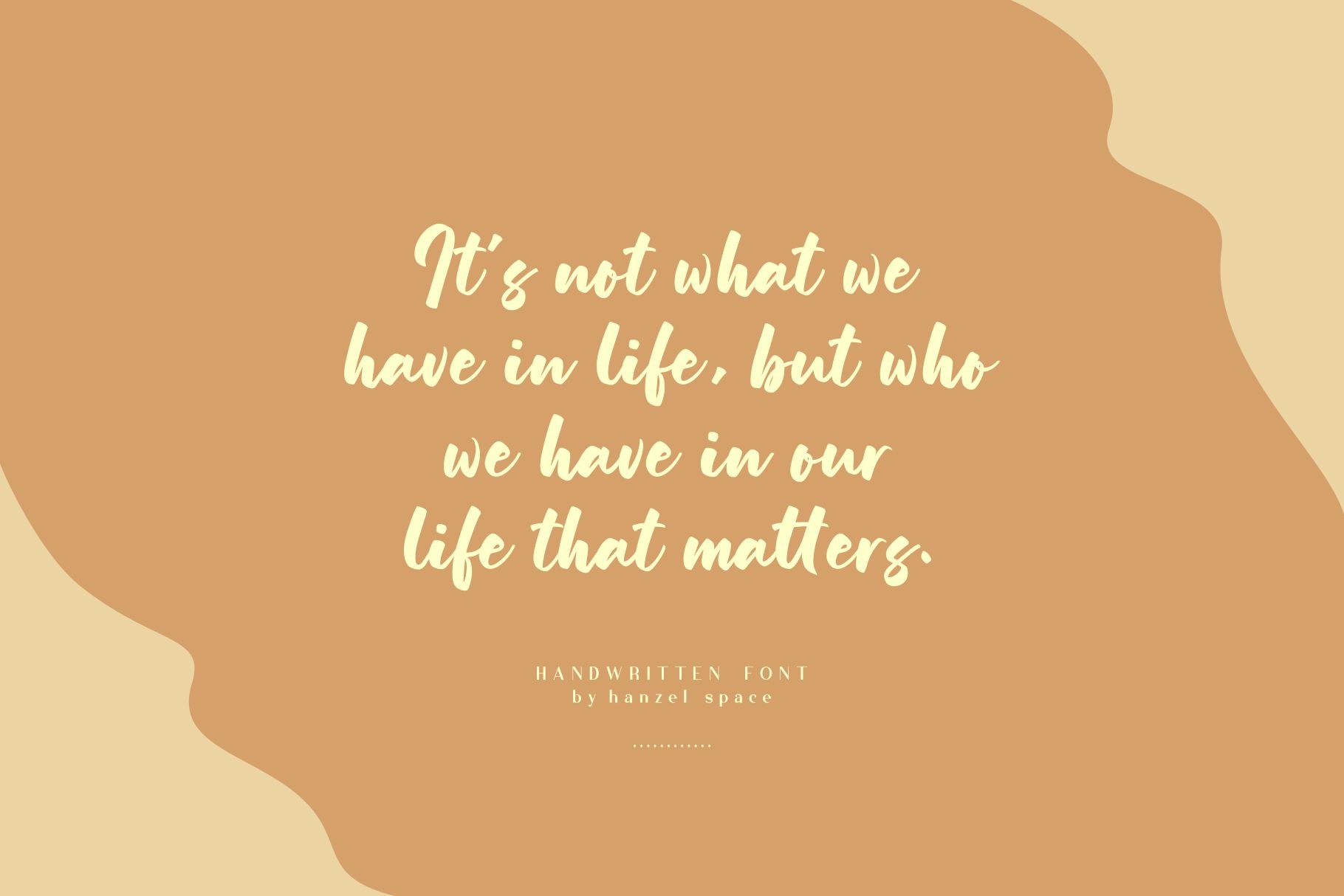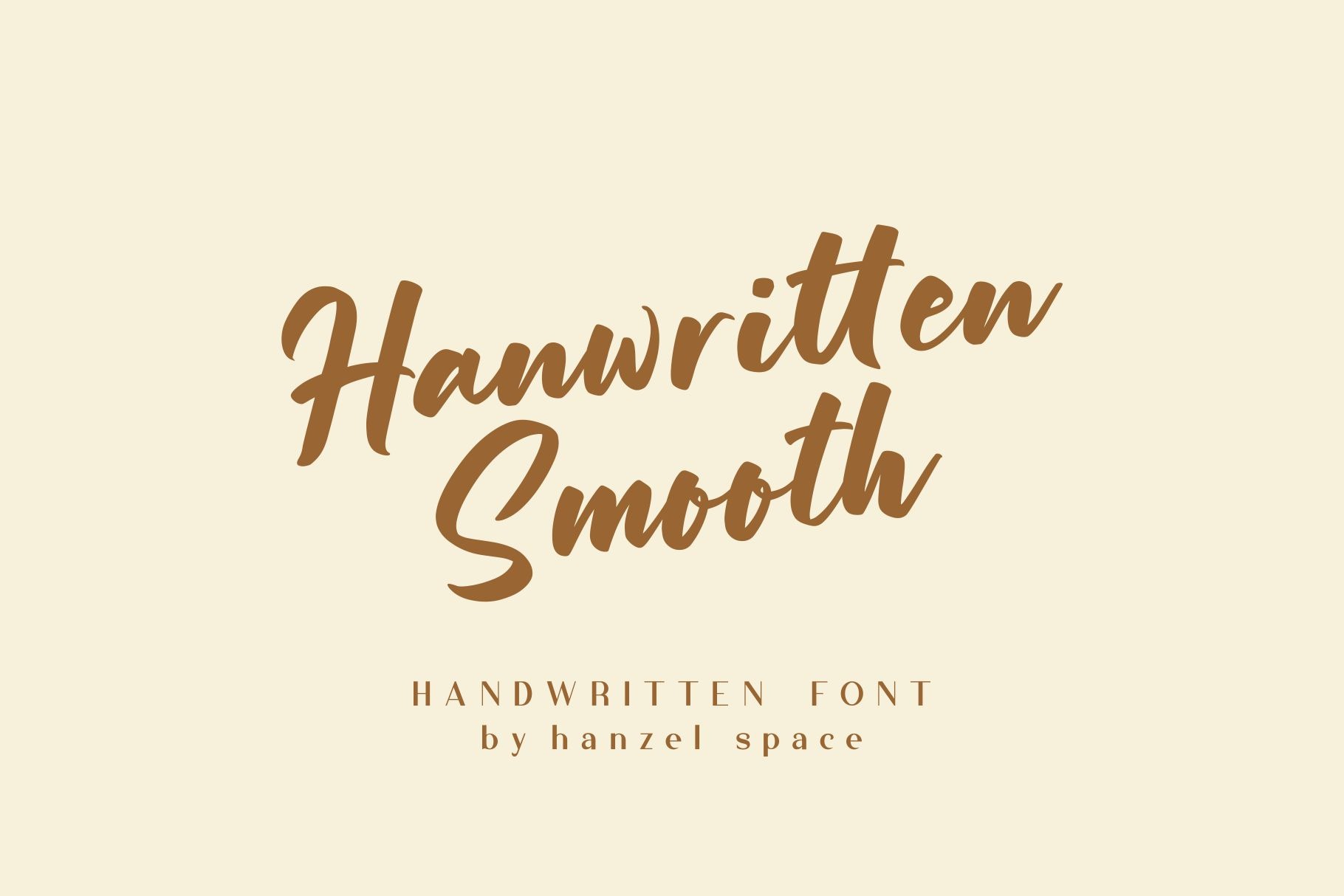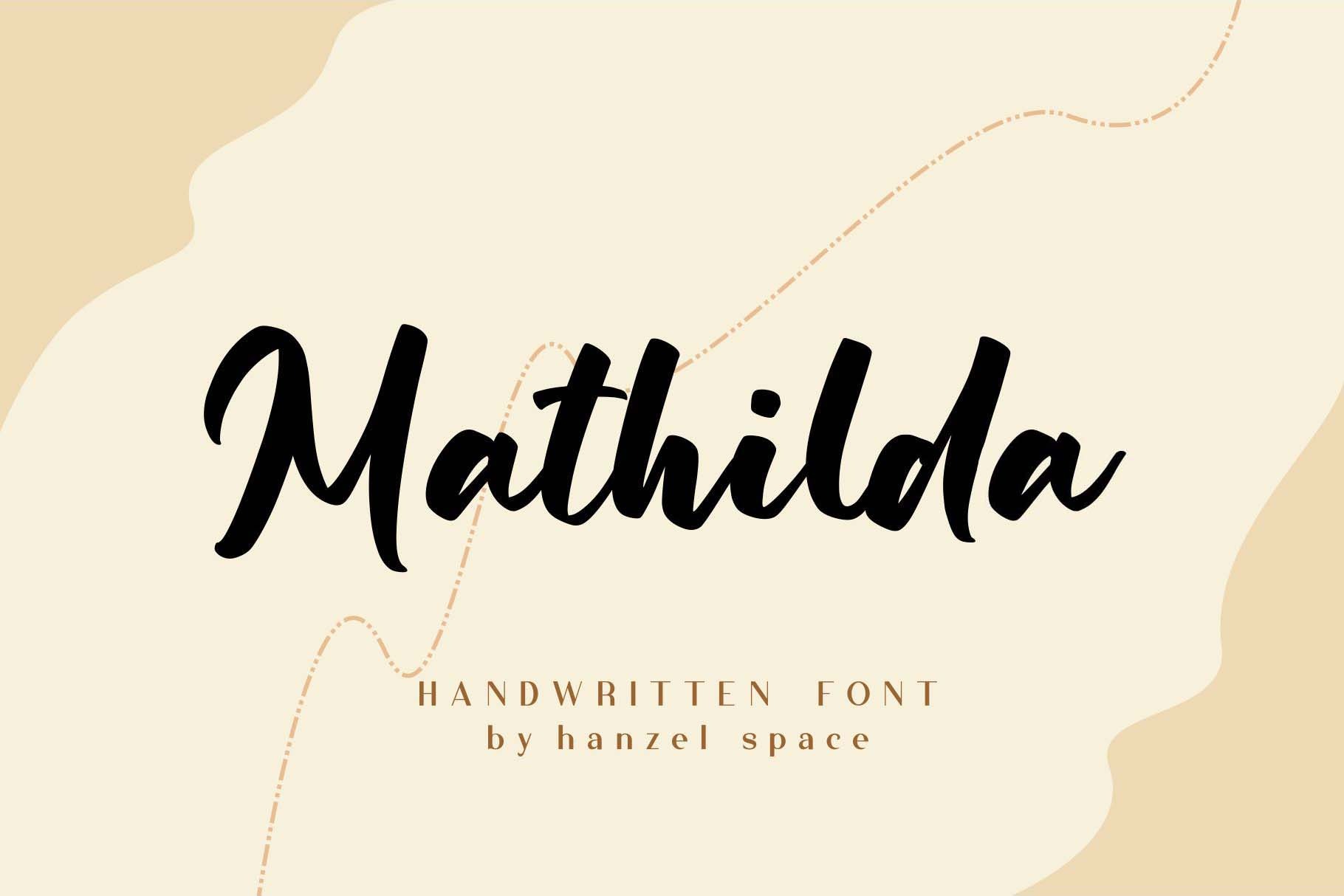
Mathilda Script Font
This is a modern smooth brush font, organic, dynamic and energetic sytle. Allow you to create flowing hand-lettering. Addictive fonts are designed to be a powerful combination.
This font will perfect for many different project, Designed to feel comfortable with variety projects including advertising, campaigns, poster design, wedding, website, branding, logo, fashion, magazines, social media.